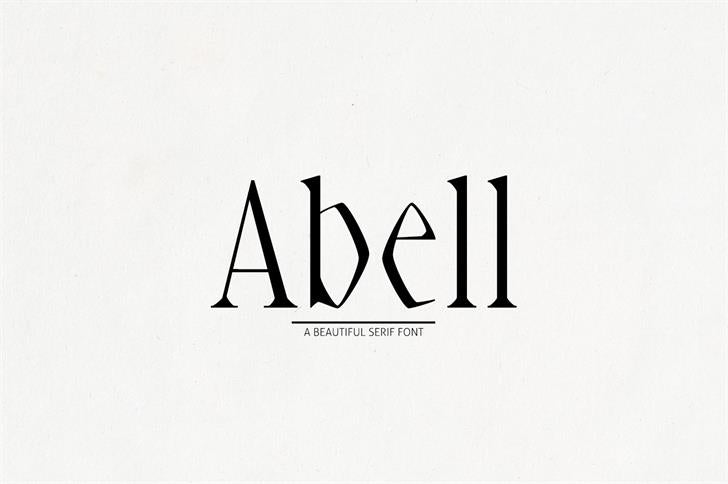
Free Abell Black Font
Take a look at this adorable free abell black font. This is a downloadable free font file brought to you by Font Space. Easily amaze your audience with this fancy font and make your graphic designs pop up from the crowd.